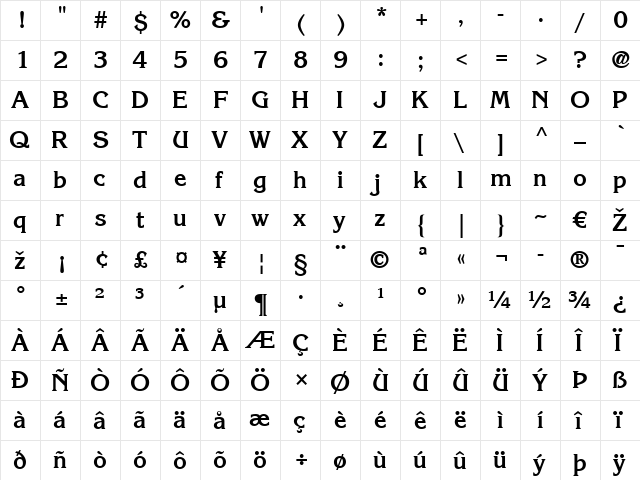
Korinna LT Bold
Design Context for Korinna LT Typeface
Korinna LT takes a measured approach to typography — its balanced proportions and neutral character make it a reliable workhorse for both digital and print work. The heavy weight commands attention and anchors typographic hierarchies.